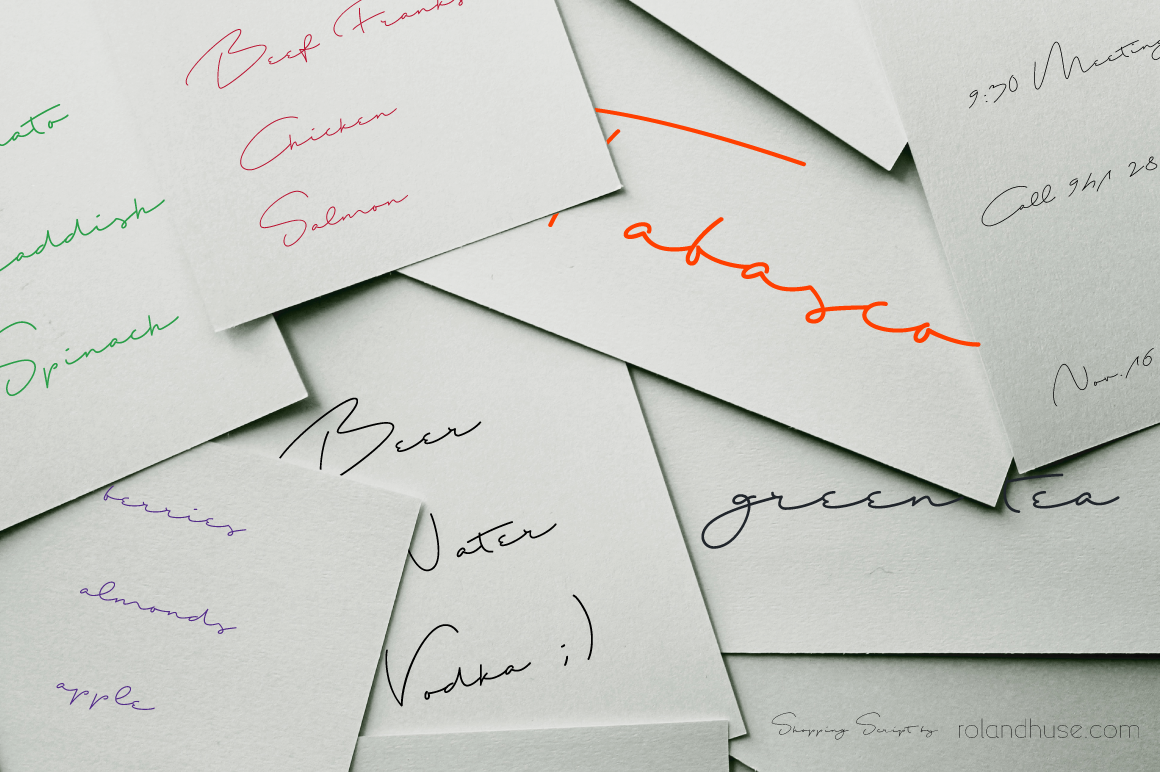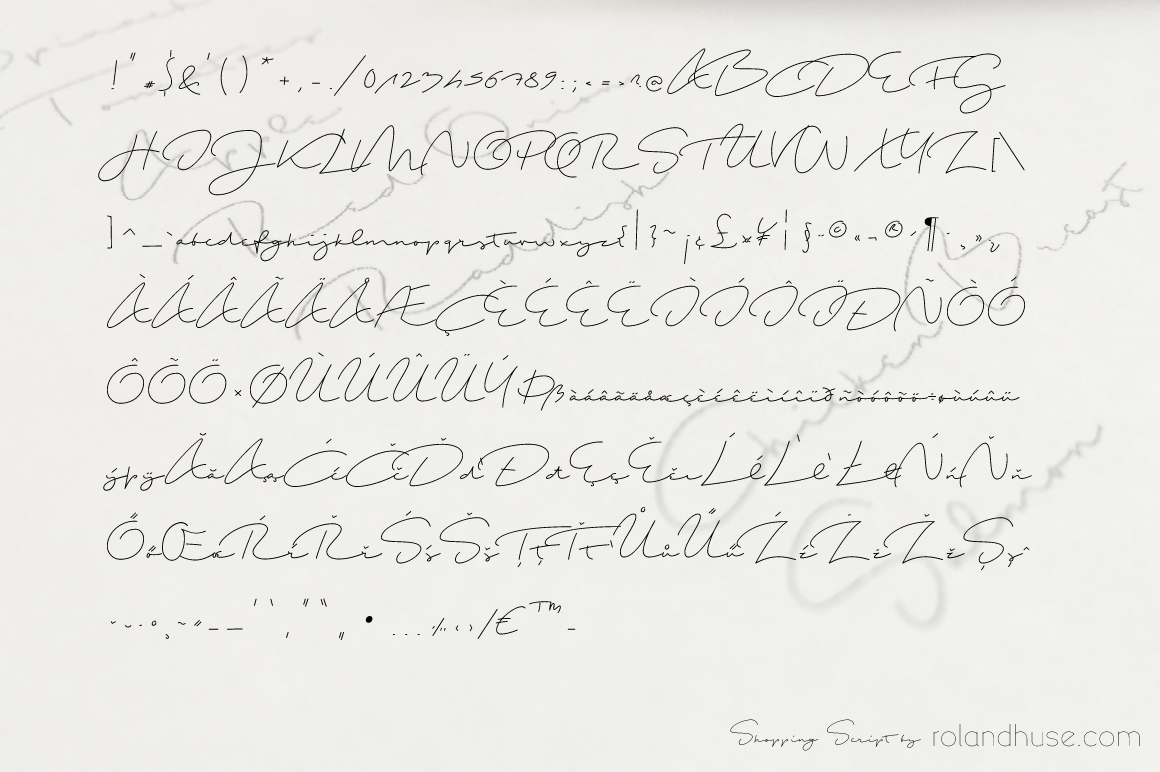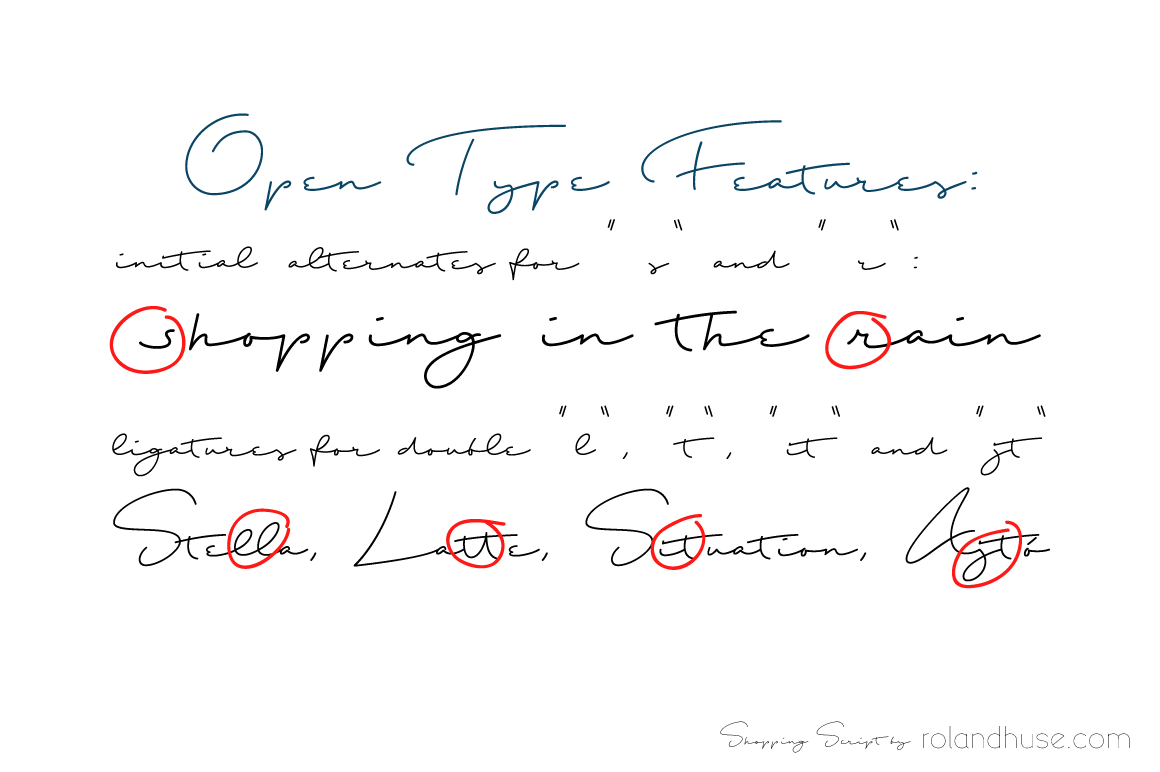
Introduction to Shopping Script Font
Remember that moment when you’re brainstorming ideas for a creative project and the perfect design element suddenly pops into your mind? For designers, finding that elusive spark can be a game-changer. Today, we’re shining the spotlight on a fantastic discovery that’s sure to elevate your next project: the Shopping Script Font.
This charming font is designed to mimic a casual shopping list or handwritten note, complete with ligatures that create a smooth flow. With its high-quality design and transparent background, it’s a versatile resource that’s perfect for adding a personal touch to your work. And the best part? It’s available for free download, making it an accessible design resource for creatives of all levels.
Whether you’re working on a personal project or collaborating with a team, the Shopping Script Font is a valuable addition to your design arsenal. Its unique style and high-quality design make it an ideal choice for designers looking to add a touch of whimsy and personality to their work.
Key Features of Shopping Script Font
- Unique Handwritten Style: The Shopping Script Font features a beautiful, handwritten style that’s perfect for creative projects, such as advertisements, product labels, and packaging.
- High-Quality Design: This font is designed with high-quality in mind, ensuring crisp and clear text that’s suitable for both digital and print use.
- Transparent Background: The Shopping Script Font includes a transparent background, making it easy to overlay text on images or other design elements.
- Perfect for Creative Projects: With its unique, handwritten style, the Shopping Script Font is ideal for creative projects, such as branding, advertising, and product design.
Honest Review: Shopping Script Font
One of the things that stands out about this font is its high quality and transparency. It’s perfect for creating eye-catching headings and titles for your designs.
- ✨ Beautifully crafted script font that adds a touch of elegance to any design
- ✨ Perfect for use on a transparent background to create a sense of depth and dimension
- ⚠️ Limited customization options, which may not be ideal for designers who like to experiment with font styles
- ⚠️ May not be suitable for use in smaller font sizes, as the script style can become difficult to read
Overall, I’m thoroughly impressed with the Shopping Script Font. Its high quality and versatility make it a valuable addition to any designer’s toolkit. While it may have some limitations, I believe the benefits far outweigh the drawbacks.
Tips for Getting the Most Out of Shopping Script Font
To get the most out of Shopping Script Font, use it on a transparent background to make it stand out. You can also pair it with other design elements to create a visually appealing design.
Is the Shopping Script Font suitable for a transparent background?
Yes, the Shopping Script Font is designed to work well with transparent backgrounds, making it an excellent choice for creative projects that require a high-quality, layered design. Simply apply the font to your design, and the transparent background will allow the text to blend seamlessly with your image or background.